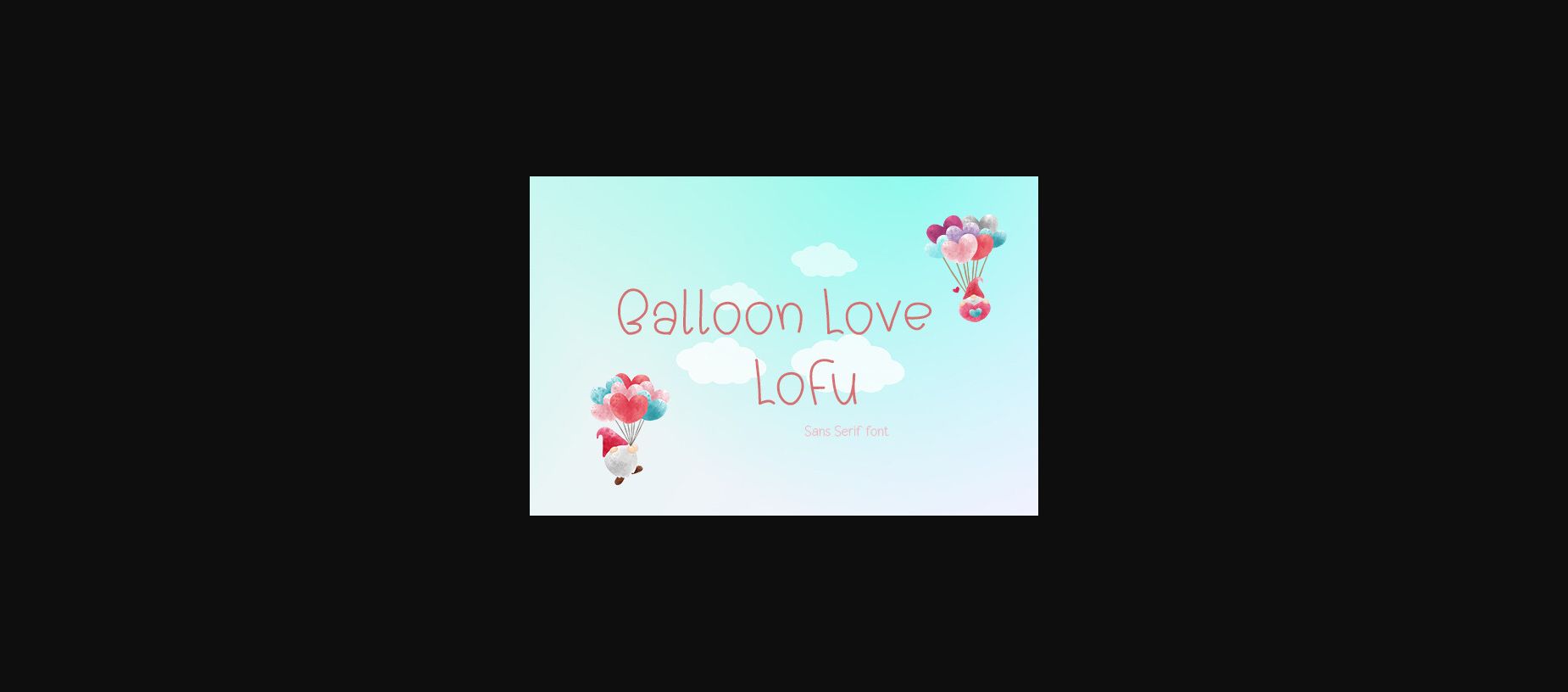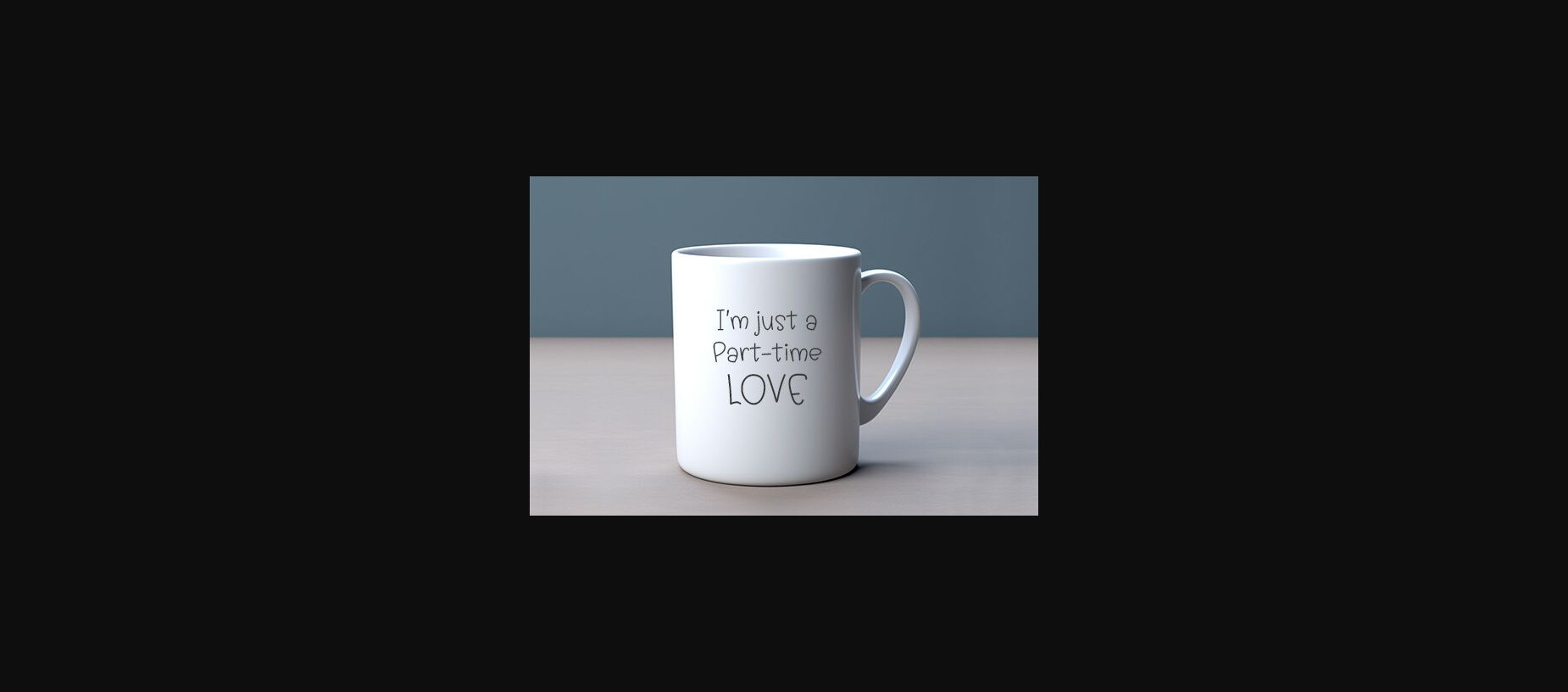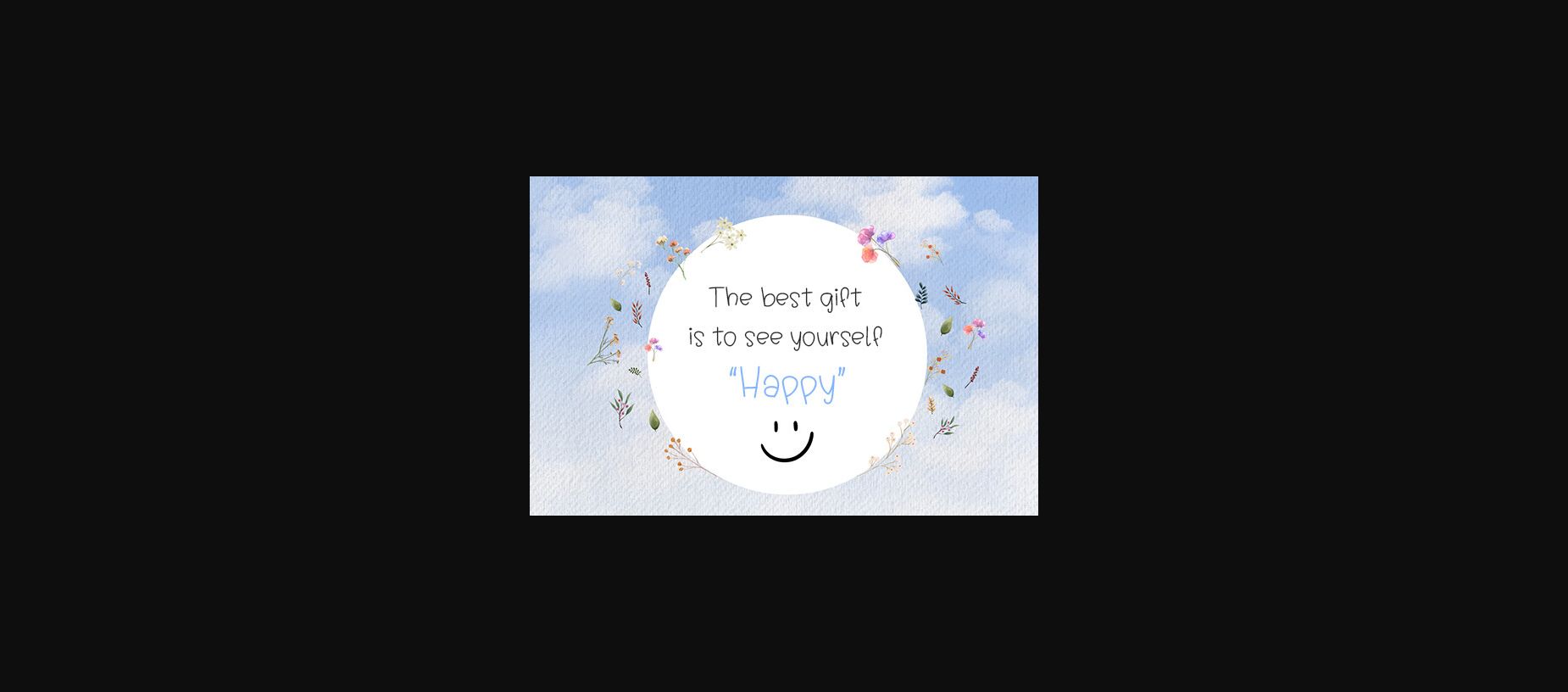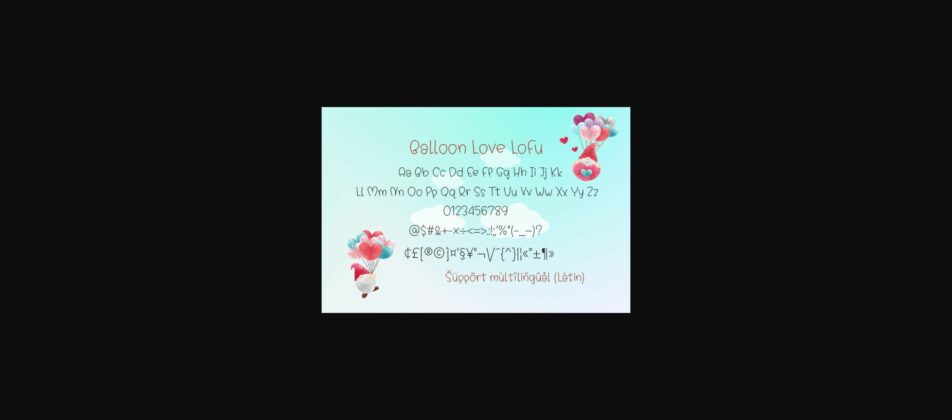
About Balloon Love Lofu Font
Balloon Love LoFu is designed in a cute, fun and playful sans serif font style. It would be an awsome addition to your fun projects and creative designs such as logos, posters, blogs, children themed designs, bag, T Shirt, clothing and other designs.